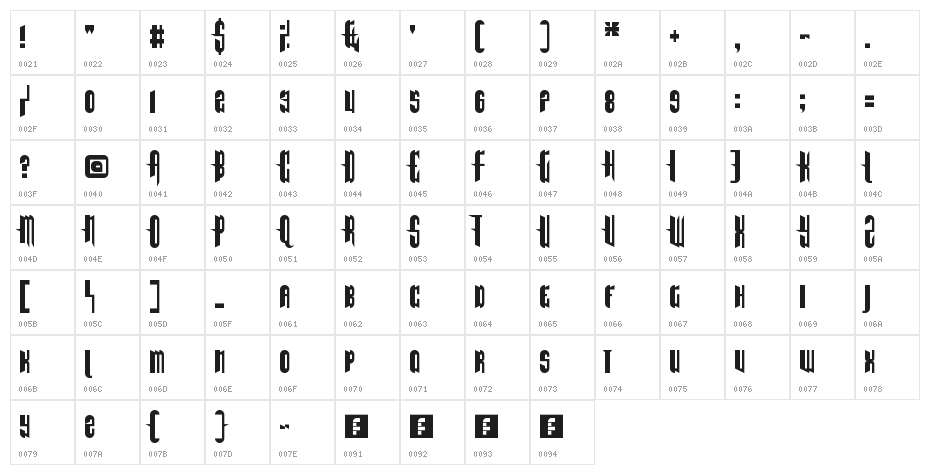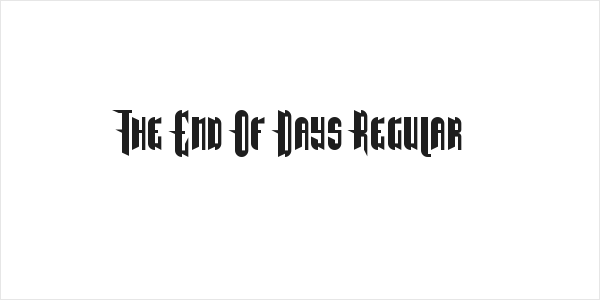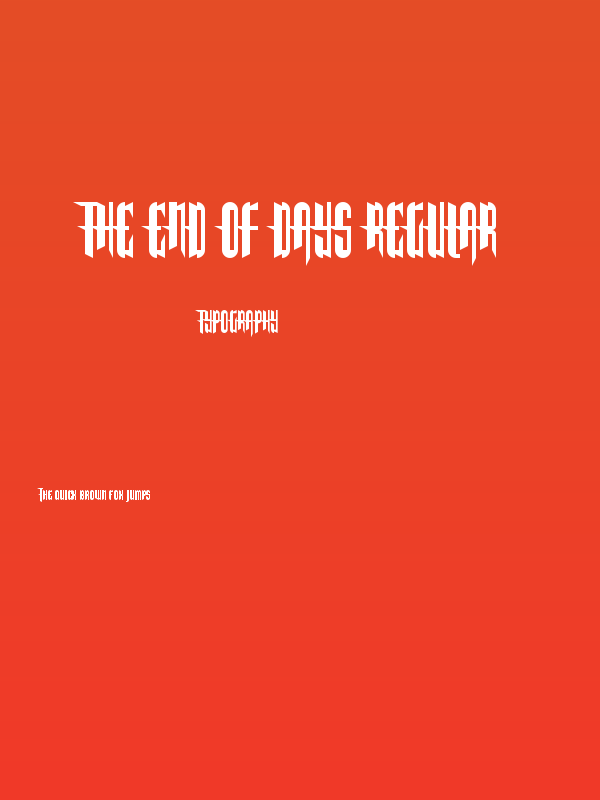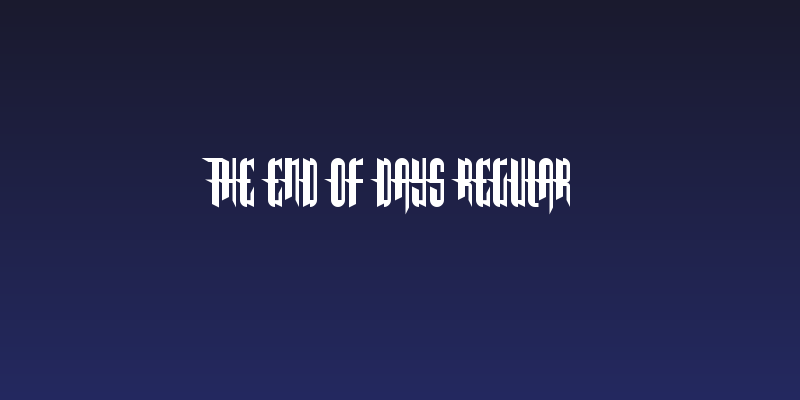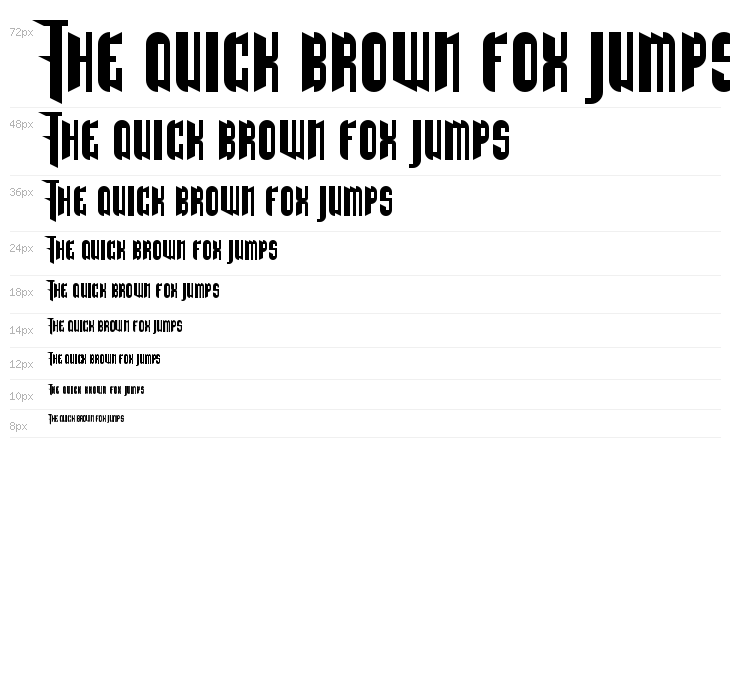
The End Of Days Regular Font
The End Of Days Regular Description
This font features a bold, geometric style with sharp angles and a futuristic aesthetic. The uppercase letters are tall and narrow, with distinct cutouts that create a dynamic visual effect. The lowercase letters maintain the same angular design, ensuring consistency throughout the typeface. Numbers and special characters follow the same stylistic cues, making the font versatile for various applications. Its unique design makes it stand out, ideal for projects that require a modern and edgy look.